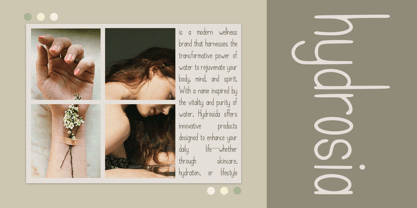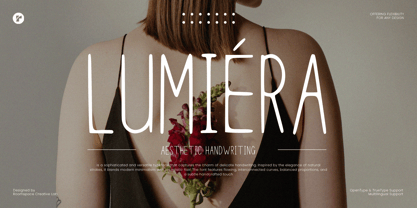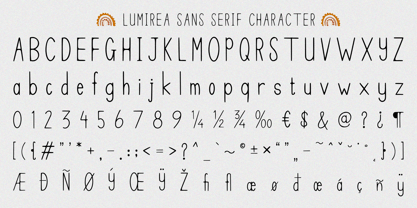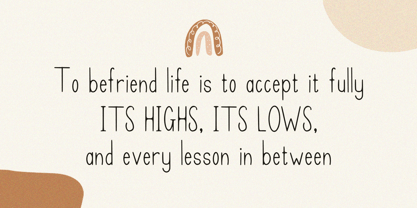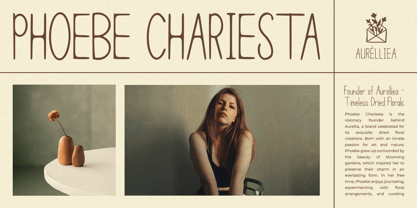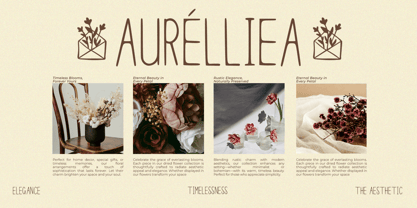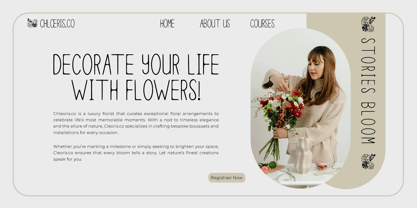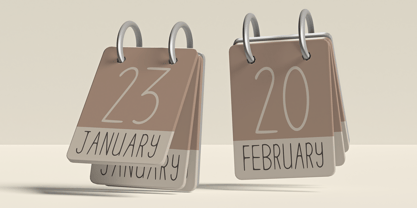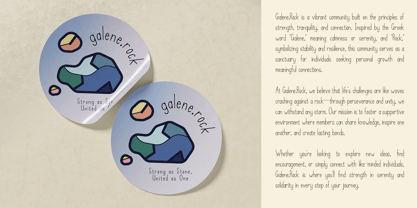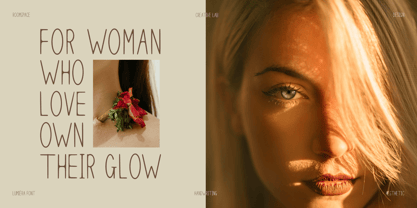
Lumirea
Lumiéra is a captivating modern aesthetic handwriting font that beautifully merges simplicity with artistic elegance. This versatile typeface is designed to elevate your creative projects, offering a contemporary yet timeless appeal. It's perfect for branding, wedding invitations, social media graphics, and editorial designs.
Inspired by natural, flowing strokes, Lumiéra brings a touch of minimalism with handcrafted details. Its smooth curves and unique character provide a personal and sophisticated vibe, making it a standout choice for both professional and creative works.
Designed with flexibility and creativity in mind, Lumiéra includes a variety of features to help you craft stunning typography. With multilingual support and a wide range of stylistic options, it ensures your designs make an impact globally.
• Regular style with natural handwriting-inspired design.
• Uppercase & lowercase characters, numbers, and punctuation.
• Multilingual support, perfect for global projects.